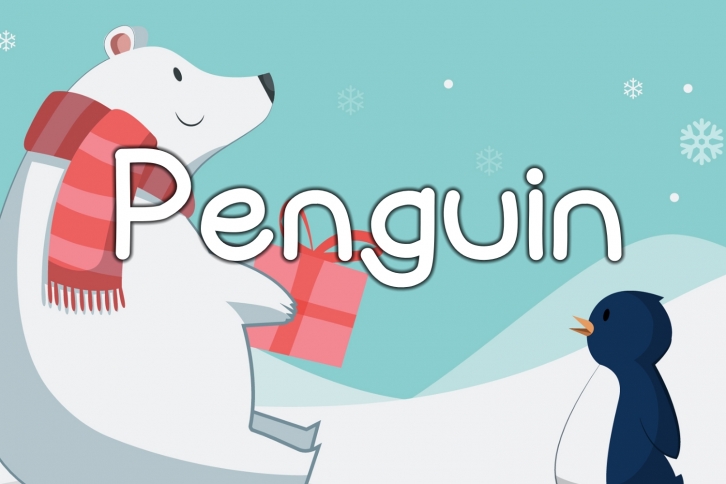
Penguin is a trendy and unique font with an authentic style. It was designed by Hella Cool Fonts and it's a great choice for creative people who need such a font. It was released on November 1, 2017 and the file size is 10.93 MB. Penguin will add an organic vibe to any design idea!